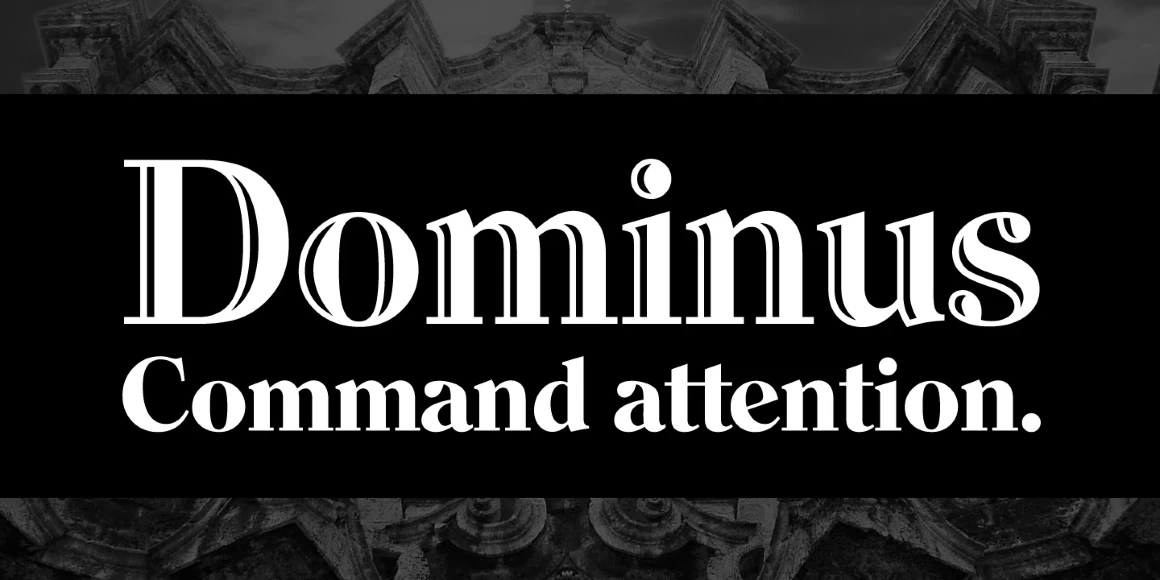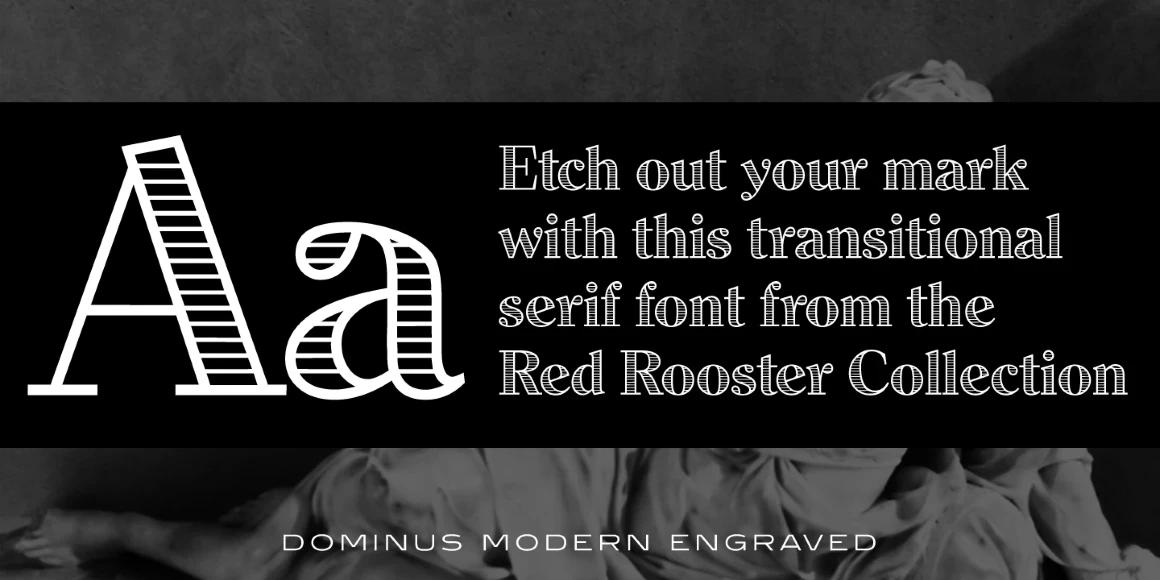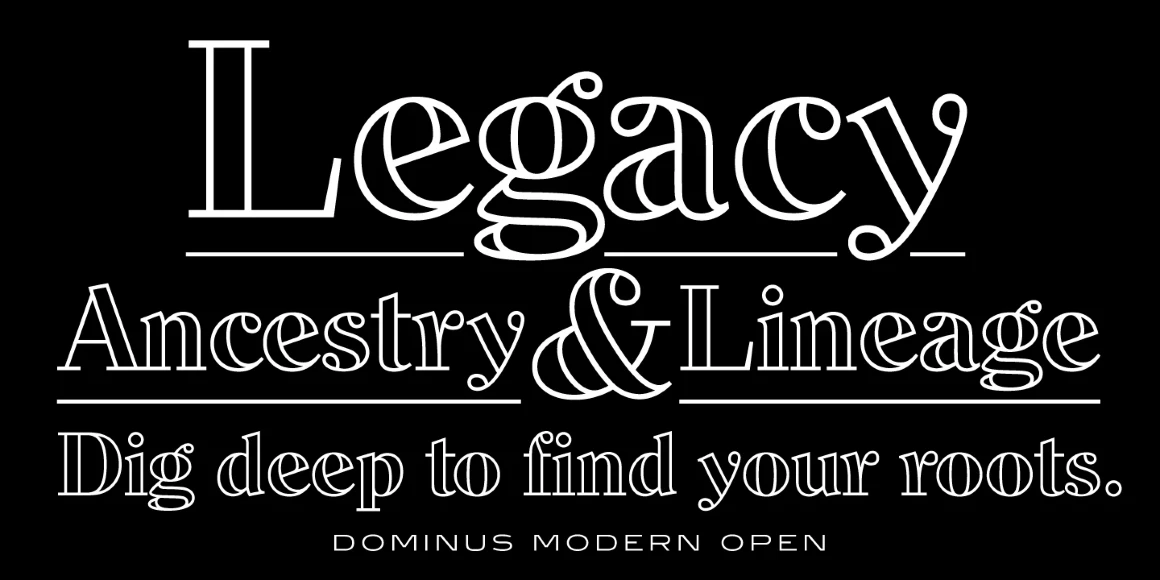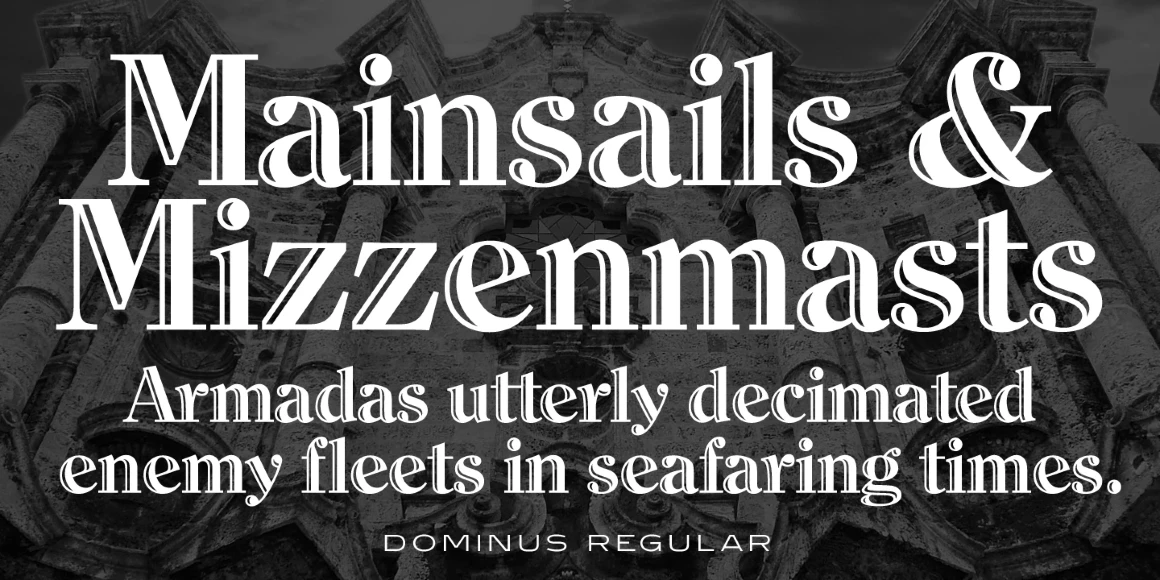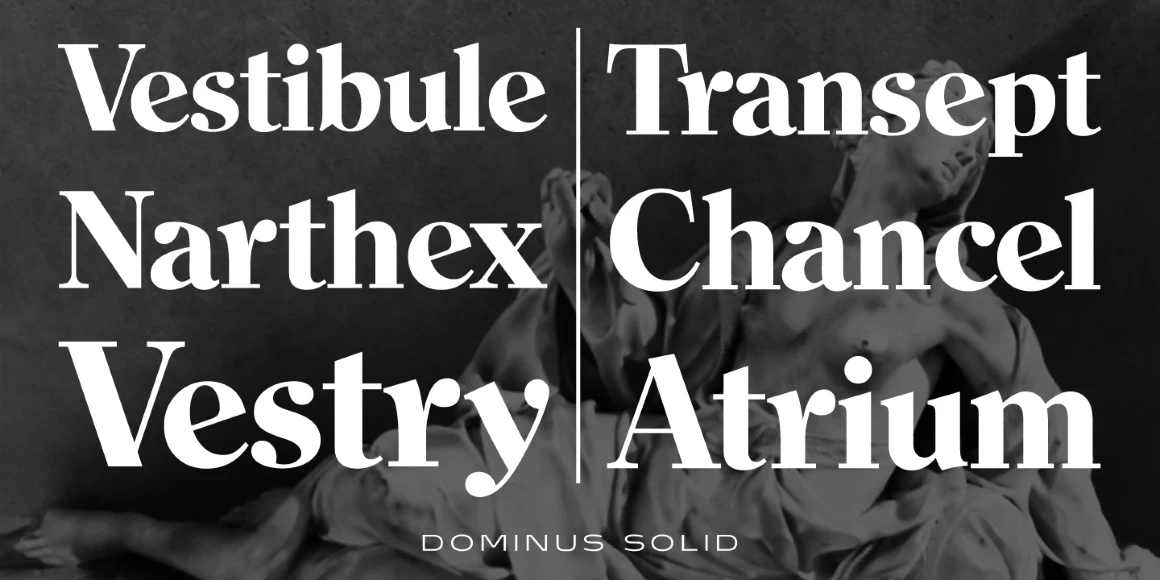
Dominus
From Red Rooster Collection
Dominus is a hand-tooled, engraved serif font family. International TypeFounders exclusively licensed the Stephenson Blake Collection, which included Dominus. Steve Jackaman (ITF) created three additional weights, expanded the original inline version, and produced the digital version in 1997. At display and subhead sizes Dominus is visually commanding yet sophisticated, elegant yet powerful, and highly legible.